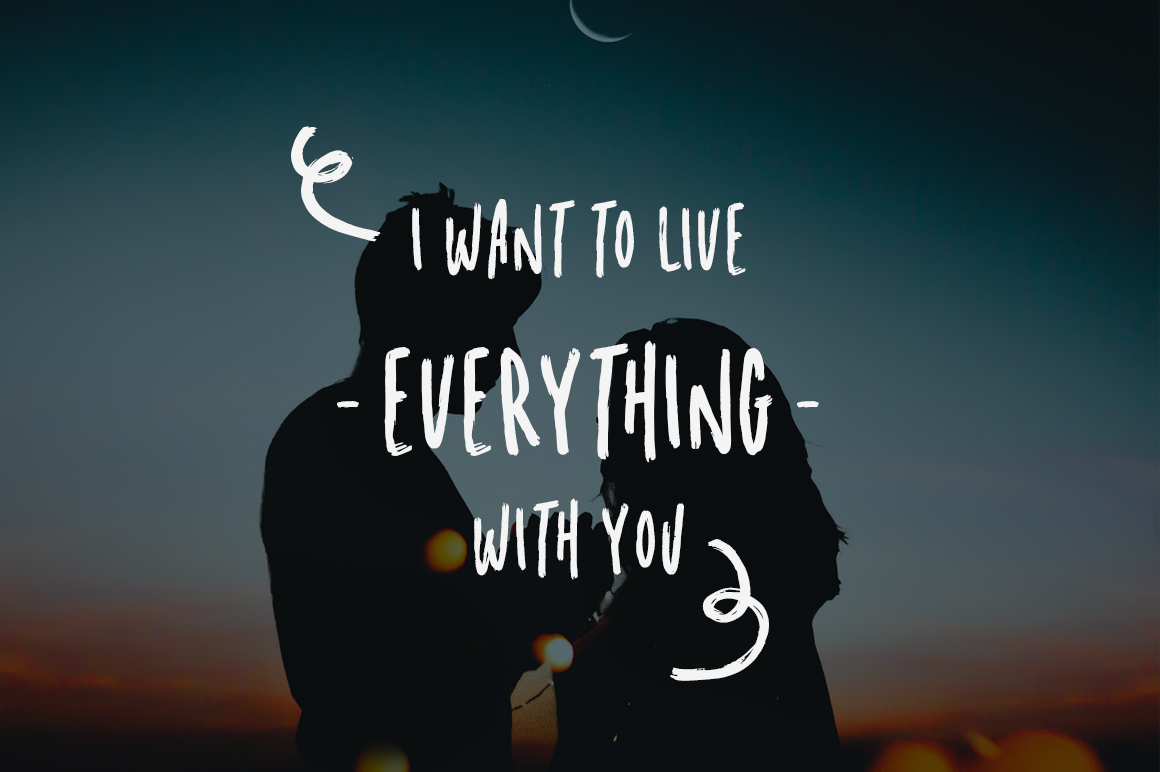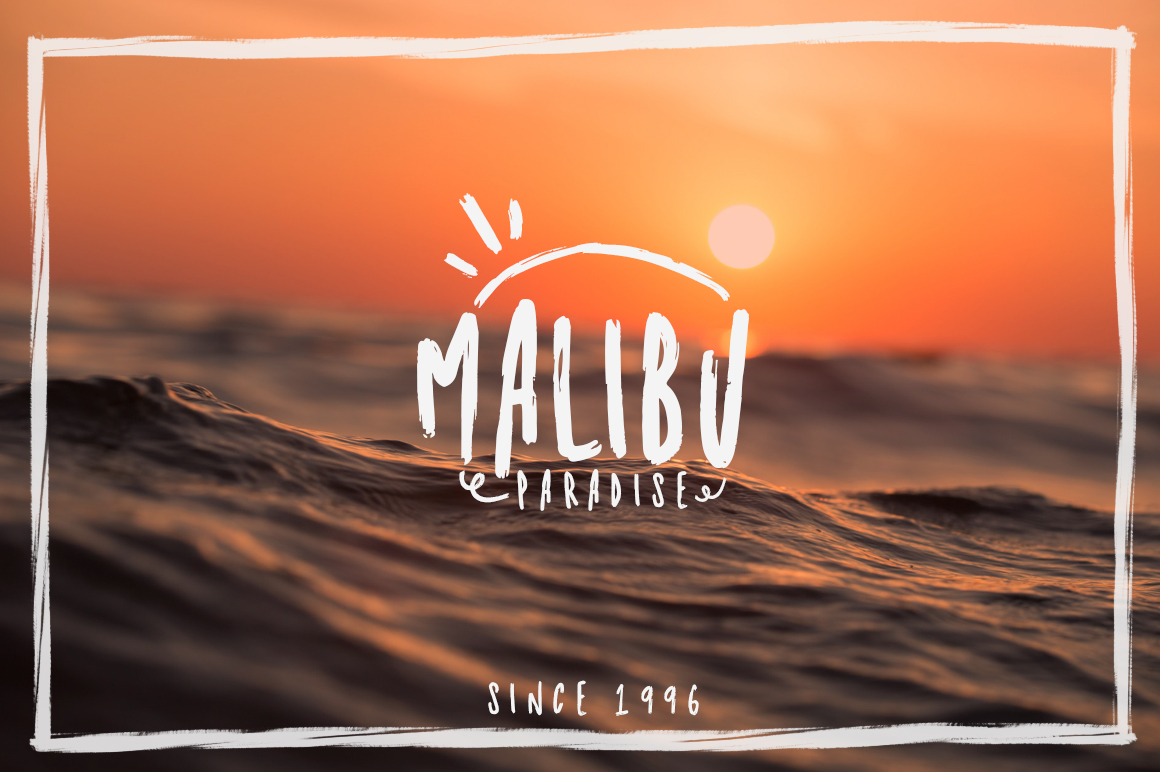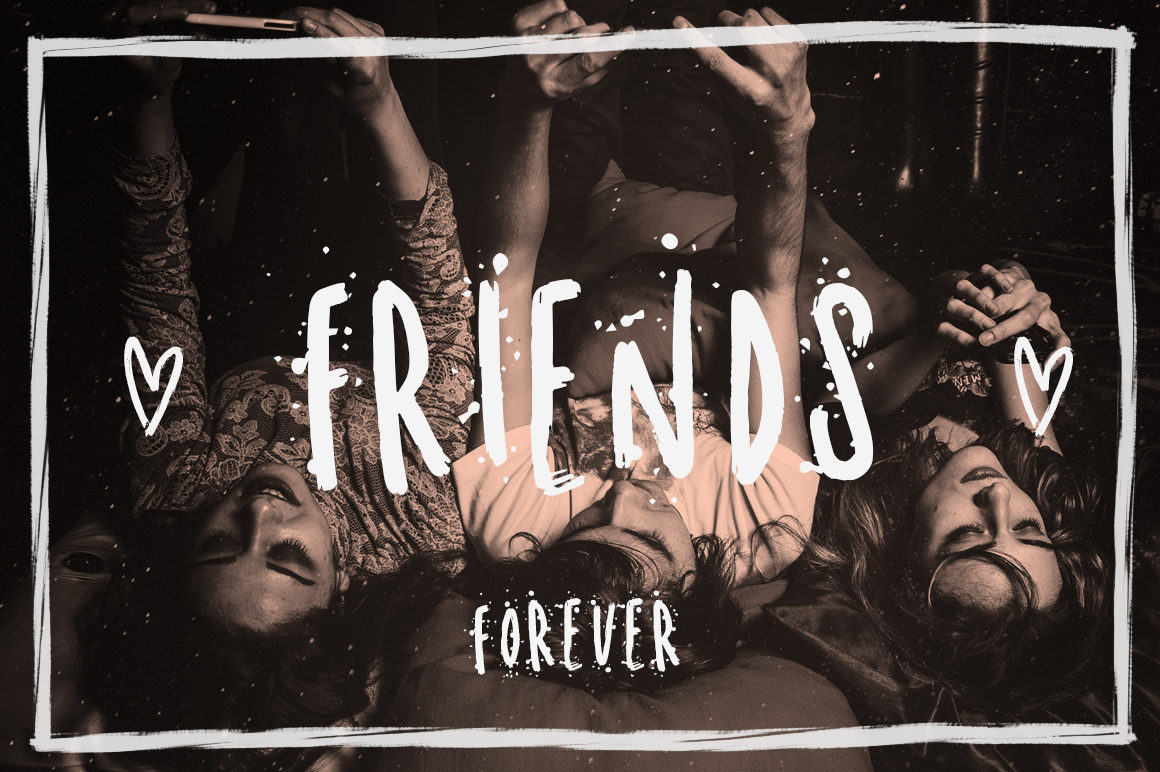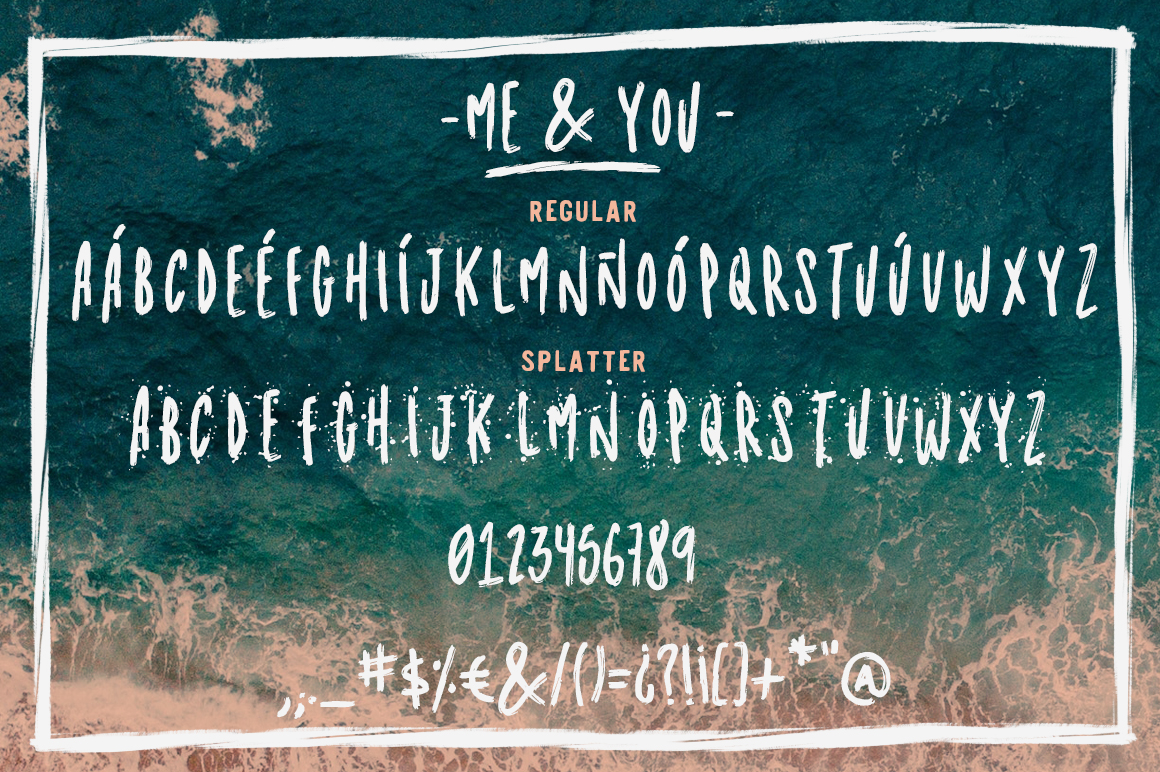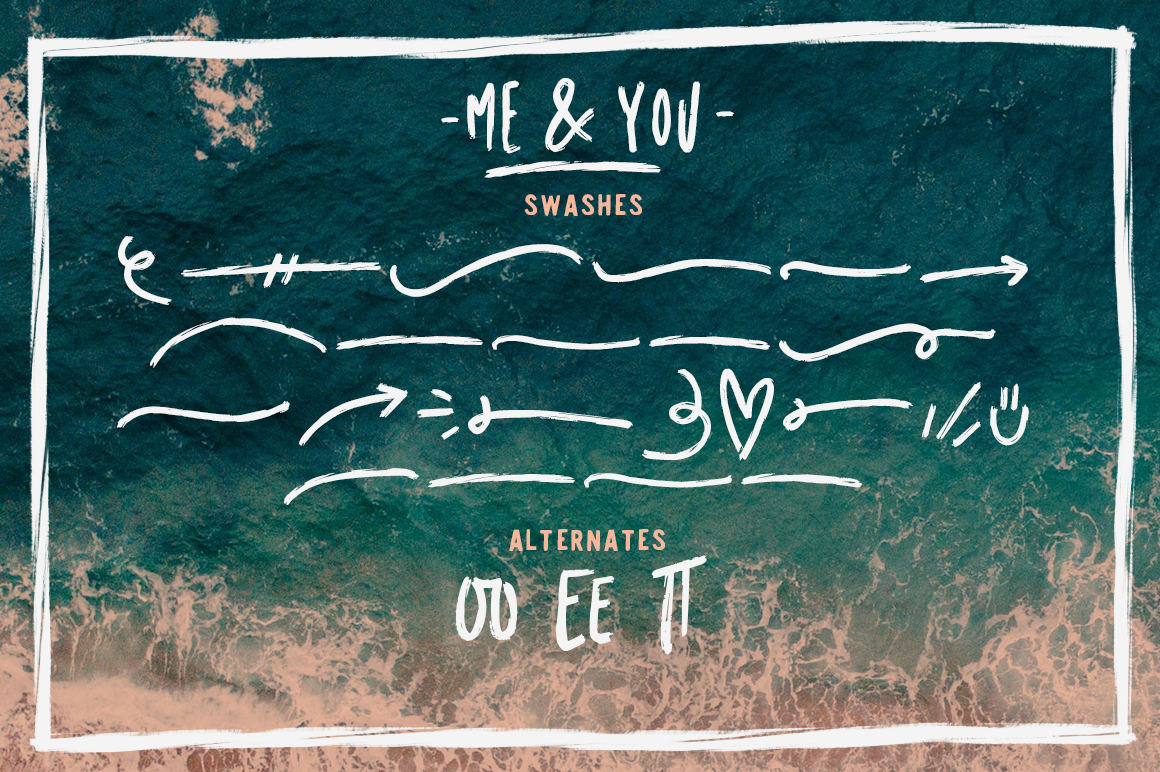
Me and You Font
About Me and You Font
This font is 100% handmade and that’s why it has that dry marker texture. Don’t miss out on this feminine and stylish font pack that contains a regular style, a splatter style, and another filled with swashes and doodles.